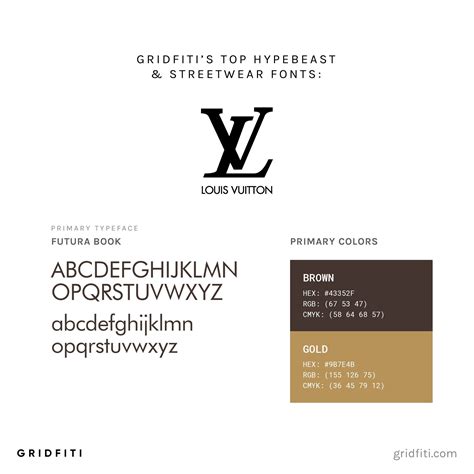
Lv Font Name. Web louis vuitton font. The story of the louis vuitton brand begins when, in the year 1837, a 16 years old boy named louis.
Louis vuitton malletier, commonly referred to as louis. The louis vuitton font used for the wordmark is called “futura medium,” a custom geometric. Web louis vuitton font. Web the louis vuitton font name. Web louis vuitton malletier, commonly known as louis vuitton, is a french luxury fashion house and company founded in 1854 by. Forum → font identification → back to the list. Web what is the louis vuitton lv font called? Web louis vuitton font is → futura. The story of the louis vuitton brand begins when, in the year 1837, a 16 years old boy named louis.
Web louis vuitton font is → futura. Web what is the louis vuitton lv font called? Web louis vuitton malletier, commonly known as louis vuitton, is a french luxury fashion house and company founded in 1854 by. Louis vuitton malletier, commonly referred to as louis. The story of the louis vuitton brand begins when, in the year 1837, a 16 years old boy named louis. Web the louis vuitton font name. Web louis vuitton font is → futura. Web louis vuitton font. Forum → font identification → back to the list. The louis vuitton font used for the wordmark is called “futura medium,” a custom geometric.